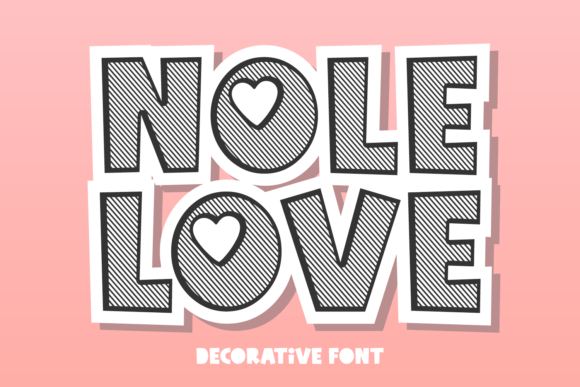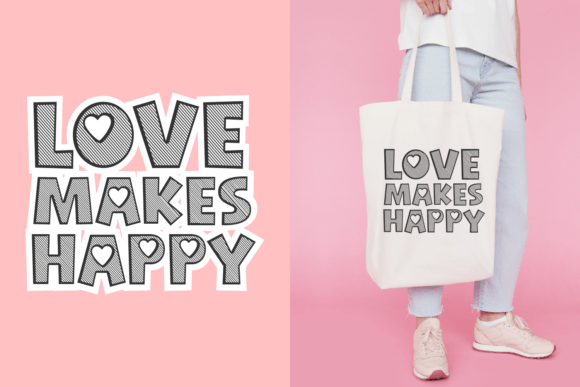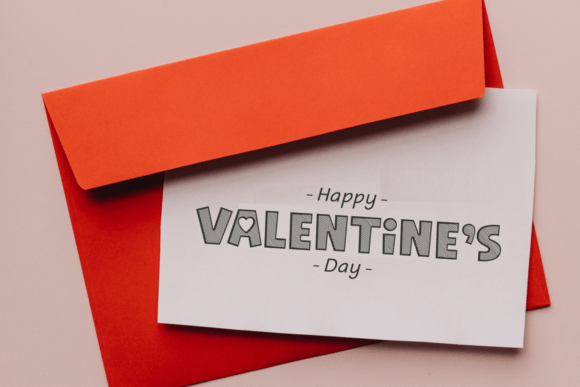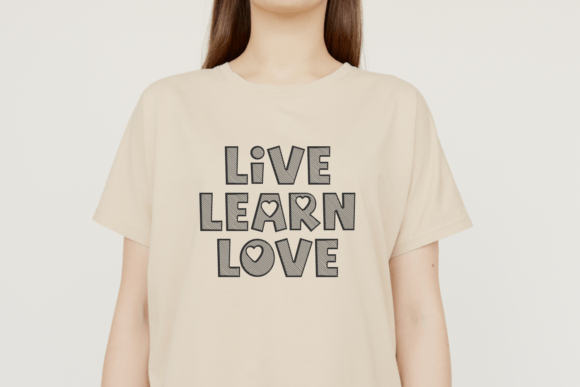
Nole Love Font
About the Nole Love Font
Crafted with precision, the Nole Love Font is ready to bring your ideas to life. Nole Love is a gorgeous decorative font, that fits incredibly well to this time of the year. No matter the topic, this font will be an incredible asset to your fonts’ library, as it has the potential to elevate any creation.
Nole Love’s decorative style is ideally suited for headlines, short text blocks on posters or invitations, and branding elements where a touch of playful elegance is desired. It works particularly well for projects with a celebratory or romantic feel. Avoid using it for body text or lengthy paragraphs; its decorative nature makes it less legible for extended reading. Similarly, it’s not suitable for UI applications where clarity and readability are paramount.
The font’s core personality is cheerful and celebratory, yet sophisticated. Consider pairing Nole Love with a clean sans-serif like Open Sans for body text to create visual balance, or a classic serif such as Garamond for a more traditional, yet still elegant feel. For a bolder contrast, a geometric sans-serif like Futura would provide a modern counterpoint.